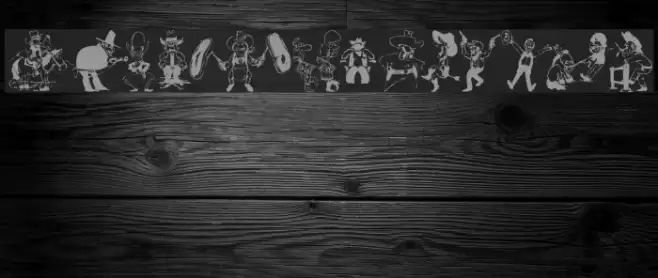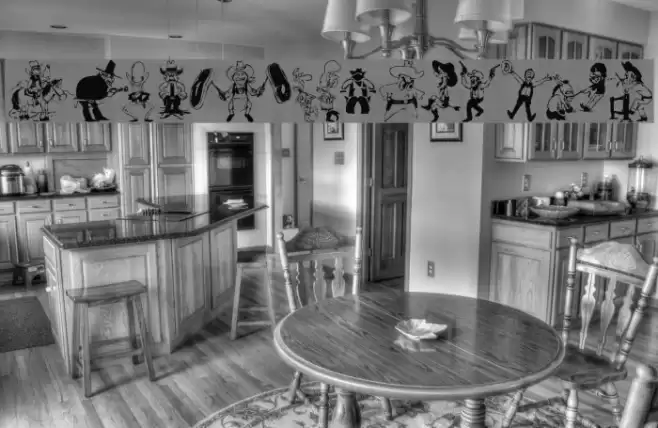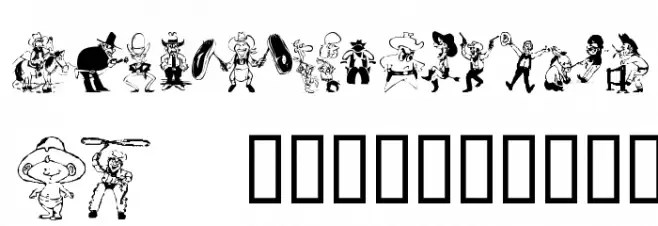
KR Wild West Font
KR Wild West Description
This is a decorative font featuring a series of playful, cartoon-style characters that embody a wild west theme. Each character is uniquely designed, showcasing elements such as cowboy hats, boots, lassos, and other western attire. The font is highly illustrative, with each letter represented by a distinct character or scene, making it more of an artistic expression than a traditional typeface. The detailed illustrations capture the essence of the wild west with a humorous twist, making it ideal for projects that require a fun and thematic approach.
- Proposed Projects: Ideal for themed event posters, children's books, party invitations, or any project requiring a playful western theme.
- Use Case: Logos, Posters, Themed Events